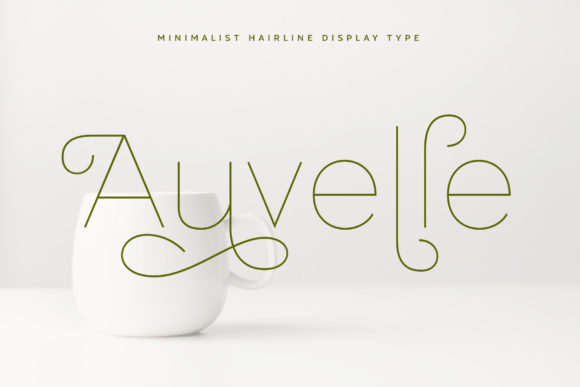
Auvelle Font
**Introducing Auvelle Font: The Enchanting Key to Unlocking Romantic Expression**
Prepare to be captivated by Auvelle Font, a display masterpiece that embodies elegance and charm. Its thin, delicate strokes dance across the page, creating an aesthetic that is both visually stunning and emotionally evocative.
Immerse yourself in a world where words take on a new allure, where every letter whispers secrets of love and longing. Auvelle Font is not just a font; it's a gateway to expressing the intangible emotions that reside within your heart.
**A Symphony of Elegance for Your Creative Endeavors**
Whether you're a poet pouring out your soul onto paper or a designer crafting invitations that will be cherished for a lifetime, Auvelle Font is your perfect companion. Its versatility knows no bounds, making it an ideal choice for:
* **Logos that Captivate:** Create brand identities that exude sophistication and timeless appeal.
* **Wedding Invitations that Enchant:** Announce your special day with invitations that evoke the romance and elegance of the occasion.
* **Headings that Demand Attention:** Make your headlines stand out with a font that commands attention and leaves a lasting impression.
* **T-shirts that Speak to Your Heart:** Design t-shirts that convey your emotions and personal style with a touch of flair.
* **Letterheads that Exude Professionalism:** Enhance your business correspondence with a letterhead that combines elegance and readability.
* **Signage that Guides with Charm:** Create signage that welcomes customers and visitors with a warm and inviting ambiance.
* **Labels that Add a Touch of Refinement:** Elevate your products with labels that showcase their individuality and appeal.
* **News that Flows with Grace:** Engage readers with news articles written in a font that enhances readability and comprehension.
* **Posters that Make a Statement:** Design posters that captivate audiences with their eye-catching visuals and thought-provoking messages.
* **Badges that Speak Volumes:** Create badges that proudly display your affiliations and personal beliefs with a touch of sophistication.
**A Masterpiece Inspired by the Heart**
Crafted by the renowned font designer Adam Fathony, Auvelle Font is a testament to the power of creativity and the beauty of human connection. Its inspiration lies in the timeless emotions of love and romance, making it the perfect choice for expressing your heartfelt sentiments.
So, whether you're a poet, a designer, or simply someone who appreciates the beauty of written words, Auvelle Font is your key to unlocking a world of creative possibilities. Allow its enchanting strokes to guide your pen and ignite the flame of expression within you.